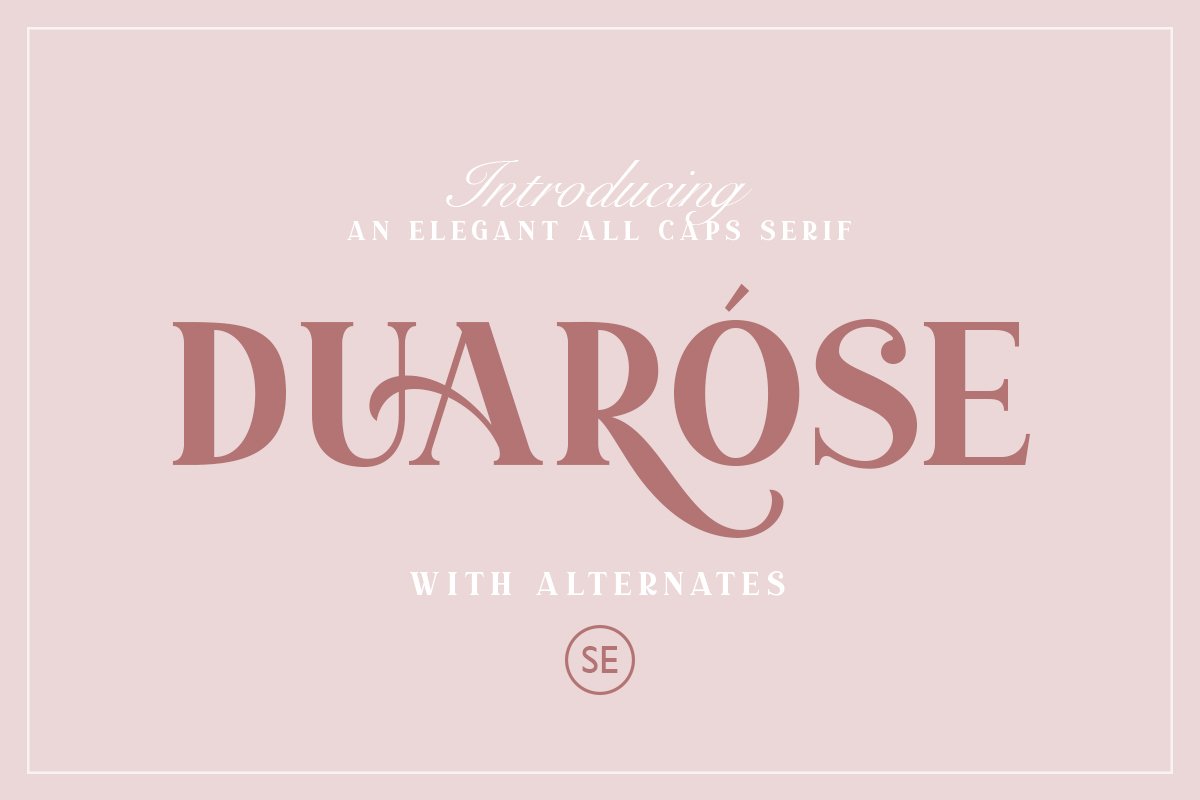
About the Duarose An Elegant Serif Font
Introducing, brand new serif, Duarose – an elegant serif with a bunch of alternates!Duarose is a classic and elegant serif with a bunch of alternates up to 6 style for each characters that will make your presentation or logo even more stunning and stand out! Duarose also support Multi Language, and already PUA Encoded!FeaturesAll UppercaseNumber & SymbolMulti languageAlternates for each charactersPUA EncodedDon’t hesitate to send me an email at saridezra@gmail